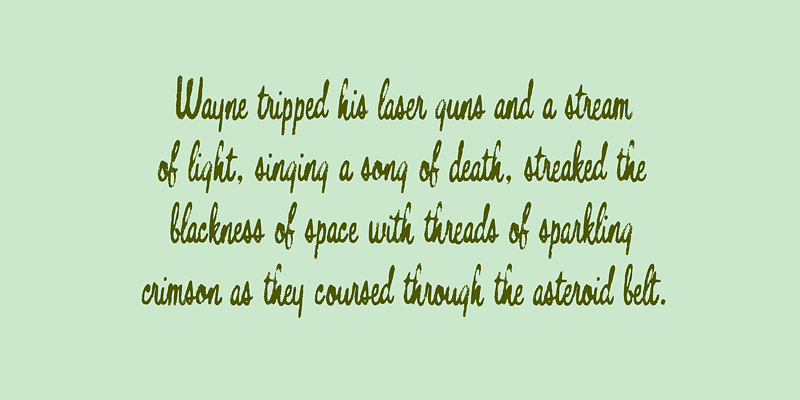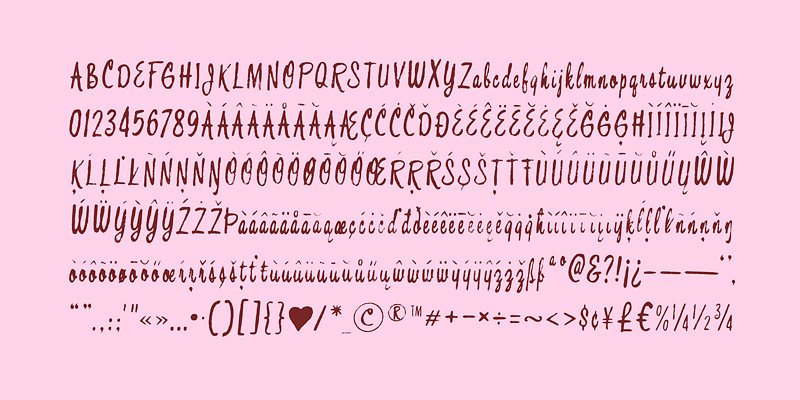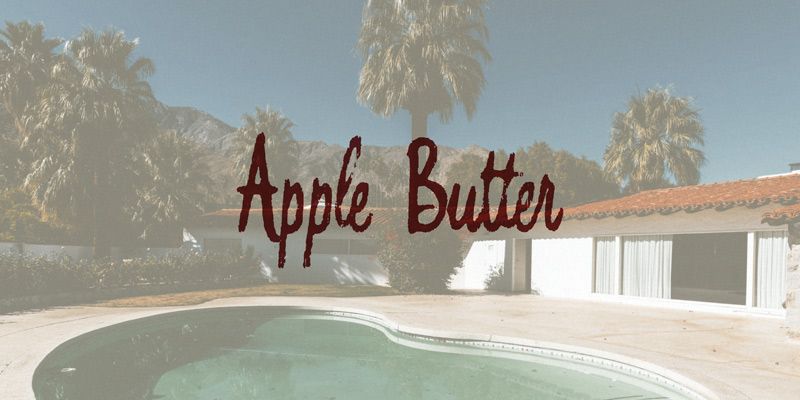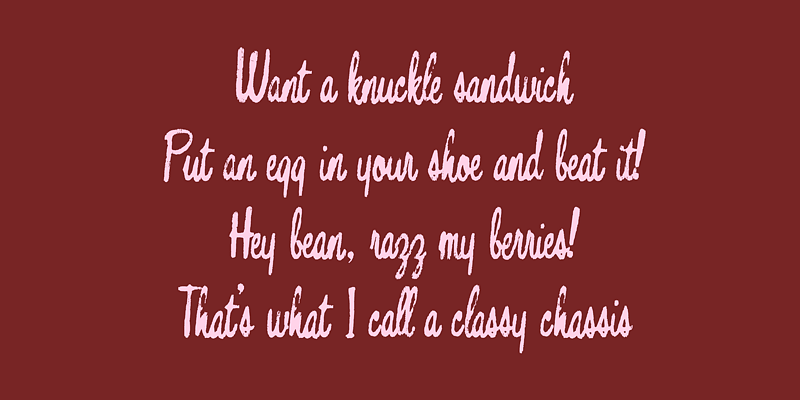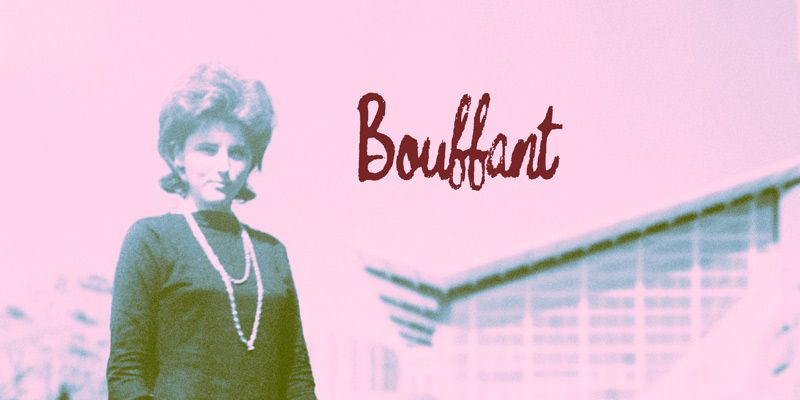
Bouffant is a compact 1950s-style script with the look of a print that has lived on a T-shirt for years. Its curls and commercial rhythm recall sign painting, while the worn surface gives the lettering a handled quality. That combination makes it useful for period packaging and environments: bakery boxes, diner menus, beauty-salon windows, motel postcards, and the everyday labels that make a mid-century scene convincing. It also works for contemporary products that want a familiar, slightly weathered voice, such as preserves, syrups, retro housewares, and roadside souvenirs. Bouffant is most effective when a short name or heading can carry the atmosphere of the whole piece.